Making Type: Amy Hood of Hoodzpah
I am beyond stoked to have our next installment of Making Type with Amy Hood. I’m unabashedly a fanboy of Hoodzpah and will not stop buying their merch. I’m talking bumper sticker on my car, poster on my office wall, mug for my coffee, hat on my head... you get the picture.
Sister duo Amy & Jen and their team at Hoodzpah have been making some of the most kick-ass design work around AND they happen to design delightful typefaces. A few years back I fell down a rabbit hole on a personal project and ended up buying their mega bundle of fonts (I couldn’t help it!). I was so so glad when they also became available on Adobe Fonts.
Here’s Amy on her type journey, influences, and life beyond the screen—
What was the initial spark that got you into type?
I was always the go-to kid in class who could do amazing lettering. You know at the beginning of the school year when you’d put your nametag on your desk or your paper covered books? Everyone would ask me to do theirs. It was social currency! Even having braces for 5 years, I had a place in the ecosystem thanks to my artistic skills. Flash forward to the early years of running our brand studio, Hoodzpah, and I was constantly hunting for fonts but not quite finding what I needed. So I started Frankensteining fonts. Adding serifs, making custom ligatures, drawing my own lettering and live tracing. Eventually it led to fully custom wordmarks and that became the thing most of our brand clients come to us for.
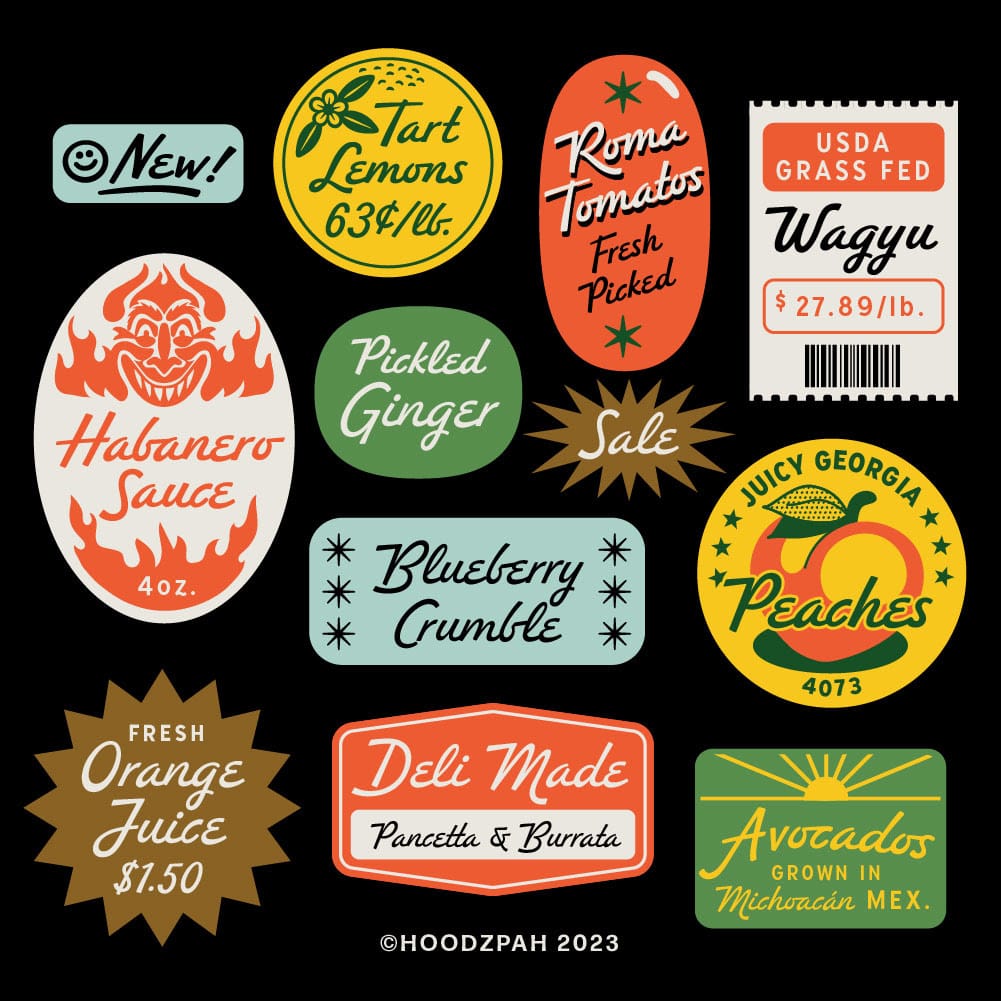
How does your client work influence how you approach making fonts?
I think being a designer who is also a type designer is a super power. Because you don’t think about type in a vacuum, you actually know the applications and needs innately from your daily design practice. So I’m acutely aware of when there’s a gap for a new font, because I spent hours searching for it and not finding it. That’s the most amazing thing about type design. Even though fonts are more ubiquitous than ever, there’s still room for more. And for nuance. That doesn’t stop me from having my annual, “do we really need any more fonts” crisis of self. lol.
A lot of your fonts have a very SoCal vibe, do you find inspiration in your surroundings?
Always! I love going to Palm Springs and seeing all the Midcentury goodness. And all the historic signage on Sunset and Fairfax in LA, or Sunset Beach, and these other communities. Southern California is such a melting pot, so I find it an endless source of inspiration.
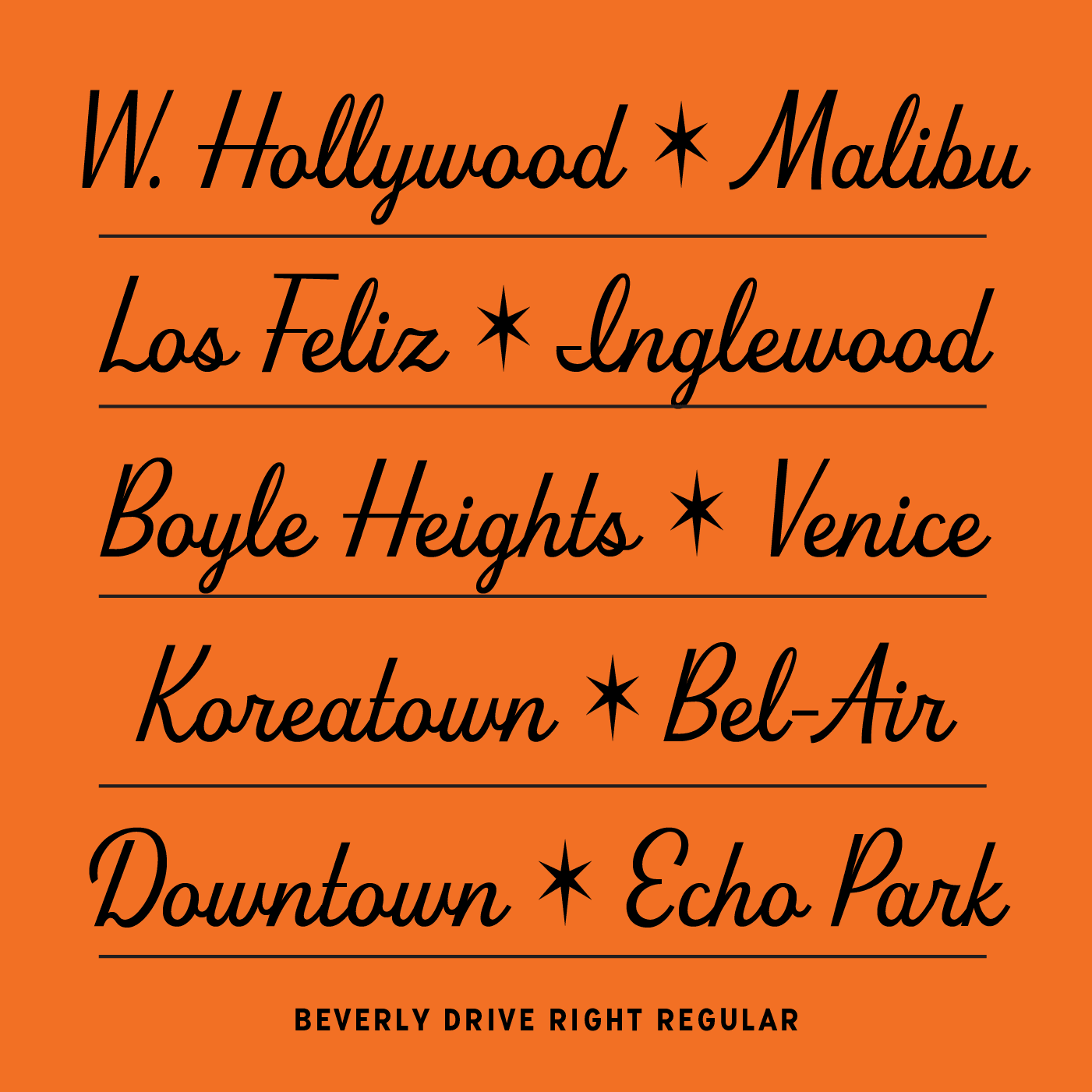
You’ve been live-streaming some of your font making process, which is very fun to watch along. How do you know when to draw the line and call it ‘finished’ vs keeping tweaking?
That is always the issue! As soon as I think I'm done and I've done language support and all the tedious punctuation, I inevitably get struck with all these ideas for extra ligatures, and “hey, what if I add a full extra style set?” At some point I just have to set a deadline for myself and announce it publicly to stop the madness and just finish. Every font hits that stage where it could be a million different things. It's a super power to commit to a direction and save all your other great ideas for the next font.
Congrats on the recent collab app with Fort foundry offering both of y’alls fonts. Can you give us any hints as to what new fonts you have in the works?
I’m going to be going hard on script typefaces this year! 2 new scripts will be coming, plus a super fun personality rich sans that has the vibe of midcentury Italy. We love it so much we already used it on the cover of our book, Freelance and Business and Stuff! You know you're on the right track when you're already using your own fonts.
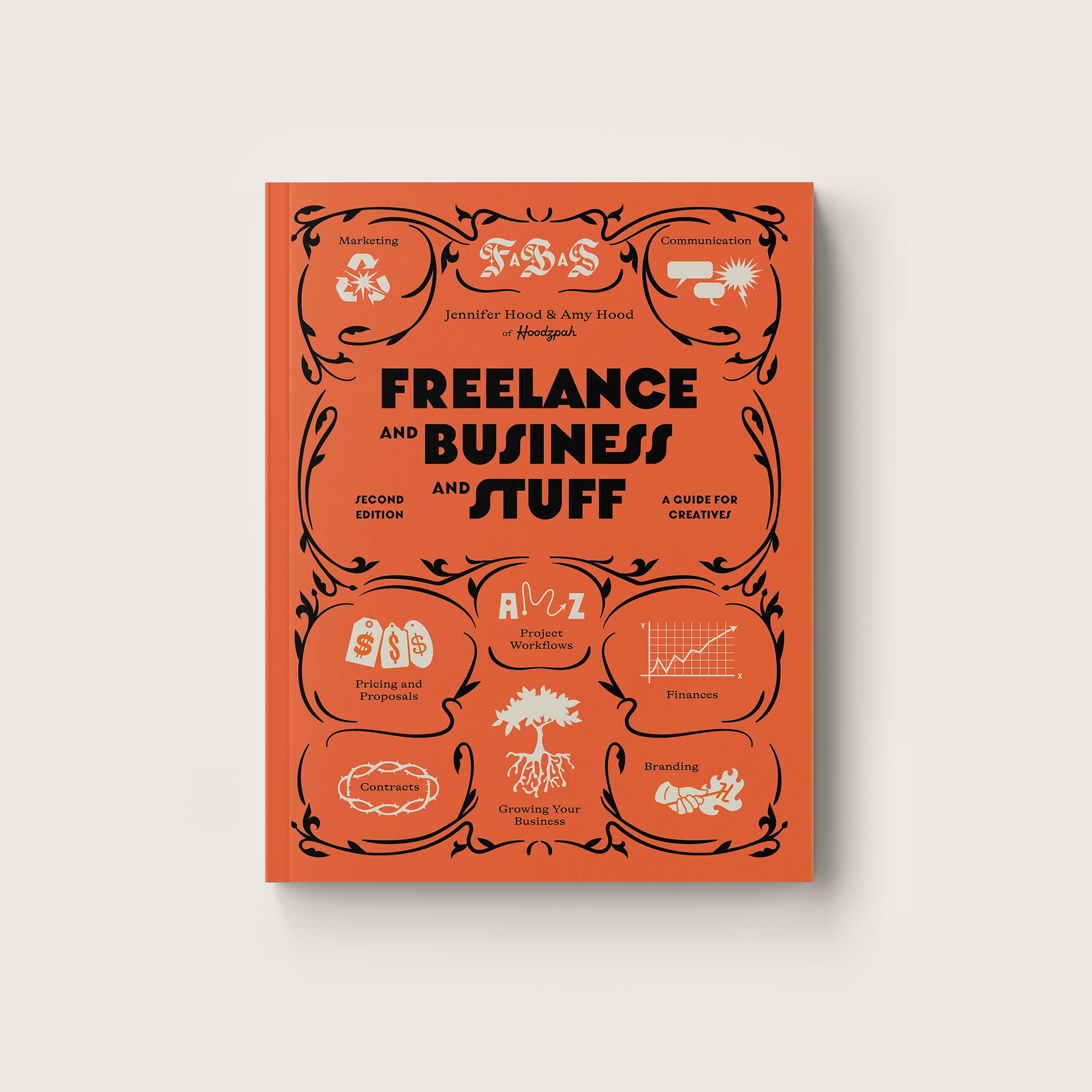
I’ve loved watching Hood Fonts grow and feel like I keep spotting your fonts in use. Do you get excited finding them out in the wild?
It is TRULY the greatest thrill! I love seeing how people apply them and customize them. It's a bit of stolen valor, because I feel in some way I had a part in the beautiful designs they made, even though they did all the heavy lifting. But I always feel proud when I see them out.
How do you stay creatively satisfied?
I think the key to creative satisfaction is having a rich life outside of making. Filling yourself up with friends, and experiences, and taking in new culture and having hobbies you're not good at. All those things help keep you grounded. And always taking time to celebrate the wins. It’s easy to just go and go and go and then start to feel burnt out. Celebrate that font release. Celebrate seeing that font in the wild. Celebrate the small progress. It’s part of the fun.